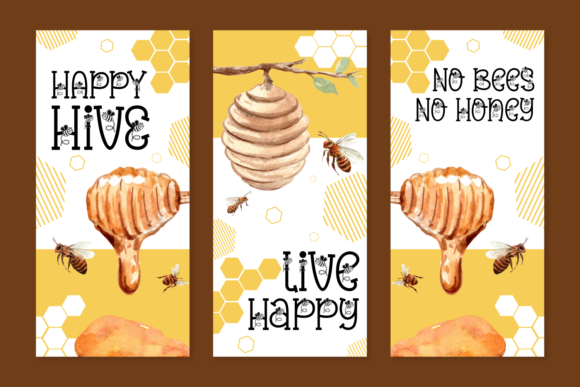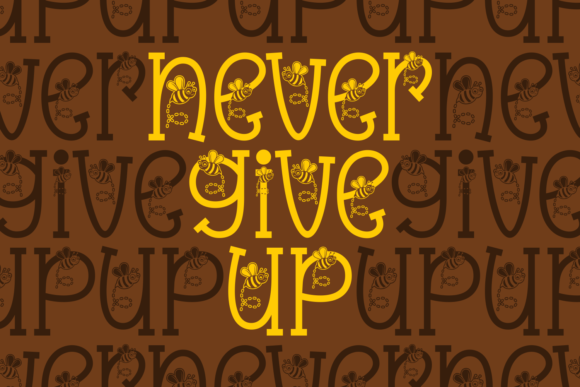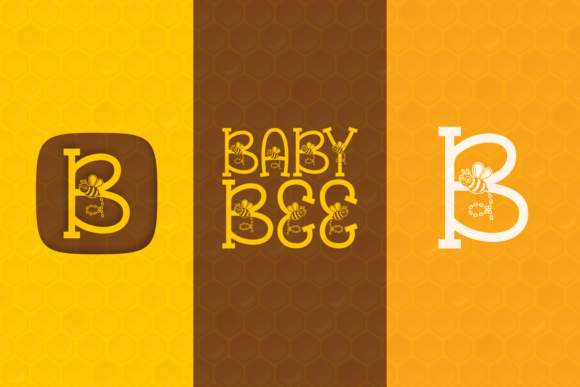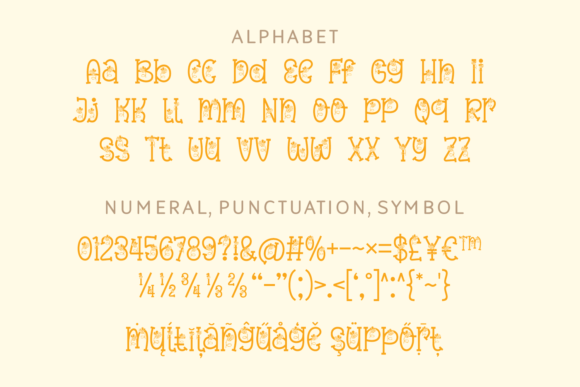
Bee Baby Font: Add a Touch of Whimsy to Your Designs with this Unique Decorative Font
Are you a designer or crafter looking for a unique and playful font to elevate your projects? Look no further than Bee Baby Font! This charming decorative font features small bee elements that are sure to add a touch of whimsy to any design. In this article, we’ll take a closer look at Bee Baby Font, its features, and how you can use it to take your projects to the next level.
What is Bee Baby Font?
Bee Baby Font is a one-of-a-kind decorative font that showcases small bee elements throughout its design. The font is perfect for designers and crafters who want to add a playful and eye-catching touch to their projects. Whether you’re working on a logo, branding materials, or craft projects, Bee Baby Font is sure to make your designs stand out.
Key Features of Bee Baby Font
- Unique Decorative Design: Bee Baby Font features small bee elements that give it a distinctive and playful look.
How to Use Bee Baby Font in Your Projects
Bee Baby Font is a versatile font that can be used in a variety of projects, including:
- Logo Design: Use Bee Baby Font to create a unique and memorable logo for your business or brand.
- Branding Materials: Add a touch of whimsy to your branding materials, such as business cards, brochures, and flyers.
- Craft Projects: Bee Baby Font is perfect for crafters who want to add a personal touch to their projects, such as scrapbooking, card making, and DIY signs.
Tips and Tricks for Getting the Most Out of Bee Baby Font
Here are a few tips and tricks to help you get the most out of Bee Baby Font:
- Experiment with Different Sizes: Try using Bee Baby Font in different sizes to see how it looks in various contexts.
- Pair with Other Fonts: Experiment with pairing Bee Baby Font with other fonts to create a unique and eye-catching look.
- Use in Combination with Images: Use Bee Baby Font in combination with images of bees or other natural elements to create a cohesive and visually appealing design.
Why Choose Bee Baby Font?
So why choose Bee Baby Font for your next project? Here are just a few reasons:
- Unique Design: Bee Baby Font features a unique and playful design that’s sure to make your projects stand out.
- Versatility: Bee Baby Font can be used in a variety of projects, from logos and branding materials to craft projects and DIY signs.
In conclusion, Bee Baby Font is a unique and playful decorative font that’s perfect for designers and crafters who want to add a touch of whimsy to their projects. With its small bee elements and compatibility with cutting machines like Cricut and Silhouette, Bee Baby Font is sure to elevate any project. Whether you’re working on a logo, branding materials, or craft projects, Bee Baby Font is a great choice. So why not give it a try and see how it can add a touch of fun and personality to your designs?